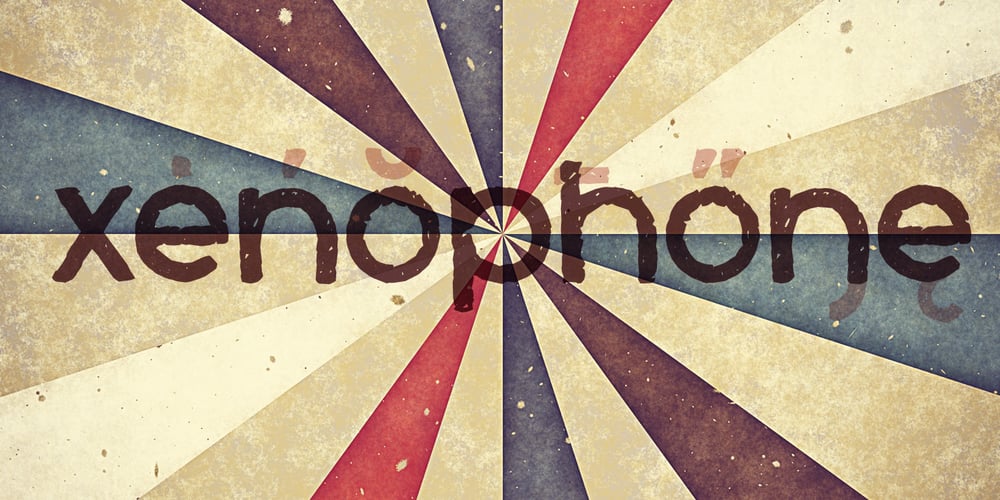
Xenophone Pro Font Family was designed by Vic Fieger, Roger S. Nelsson and published by CheapProFonts. Xenophone Pro contains 1 styles and family package options. The letters in Xenophone were created from hand-drawn figures in which coins were traced around to create curves and circles. Some capital letters resembles symbols from the greek and International Phonetic Alphabet. ALL fonts from CheapProFonts have very extensive language support: They contain some unusual diacritic letters (some of which are contained in the Latin Extended-B Unicode block) supporting: Cornish, Filipino (Tagalog), Guarani, Luxembourgian, Malagasy, Romanian, Ulithian and Welsh. They also contain all glyphs in the Latin Extended-A Unicode block (which among others cover the Central European and Baltic areas) supporting: Afrikaans, Belarusian (Lacinka), Bosnian, Catalan, Chichewa, Croatian, Czech, Dutch, Esperanto, Greenlandic, Hungarian, Kashubian, Kurdish (Kurmanji), Latvian, Lithuanian, Maltese, Maori, Polish, Saami (Inari), Saami (North), Serbian (latin), Slovak(ian), Slovene, Sorbian (Lower), Sorbian (Upper), Turkish and Turkmen. And they of course contain all the usual “western” glyphs supporting: Albanian, Basque, Breton, Chamorro, Danish, Estonian, Faroese, Finnish, French, Frisian, Galican, German, Icelandic, Indonesian, Irish (Gaelic), Italian, Northern Sotho, Norwegian, Occitan, Portuguese, Rhaeto-Romance, Sami (Lule), Sami (South), Scots (Gaelic), Spanish, Swedish, Tswana, Walloon and Yapese.